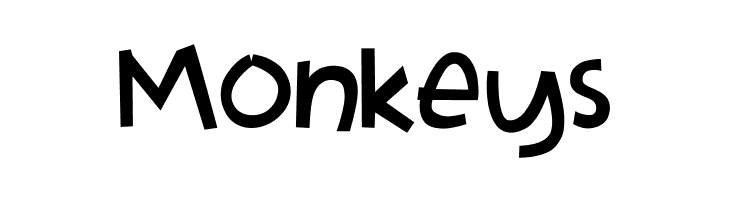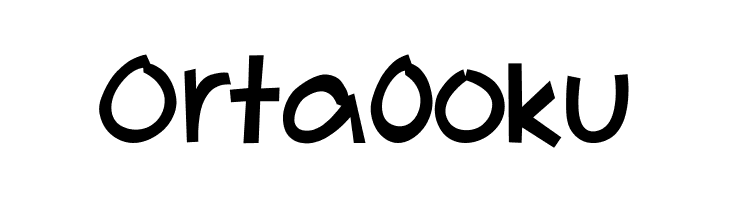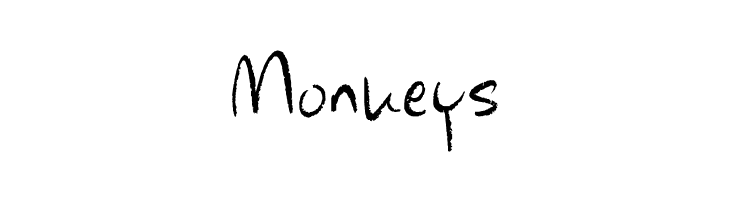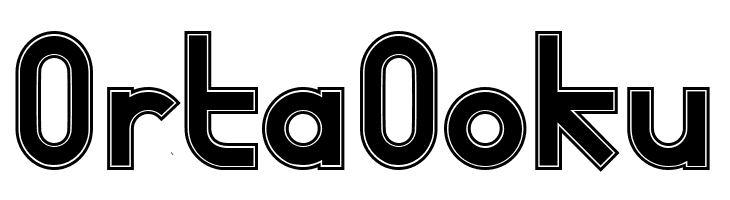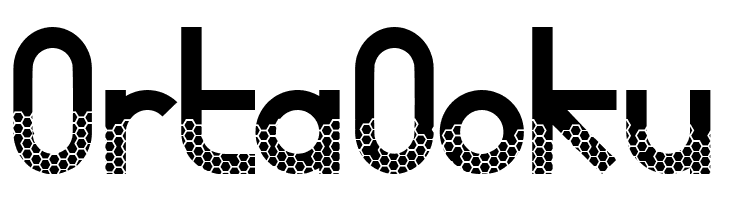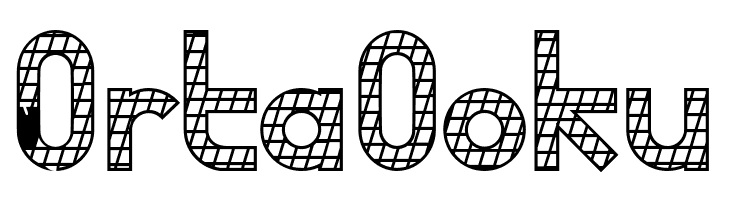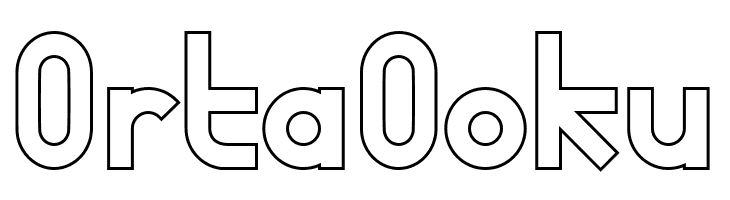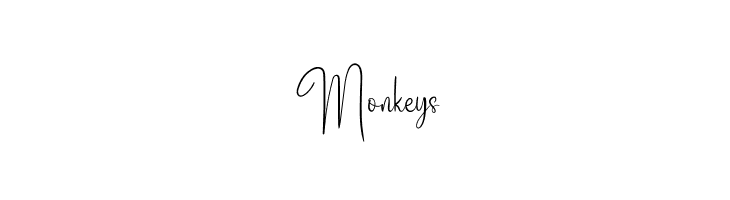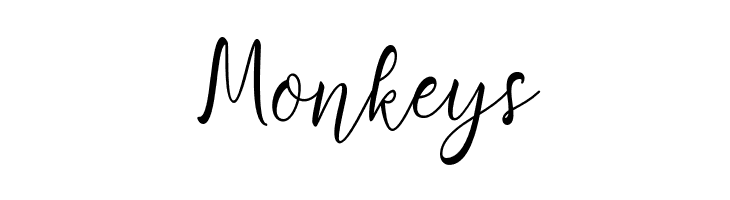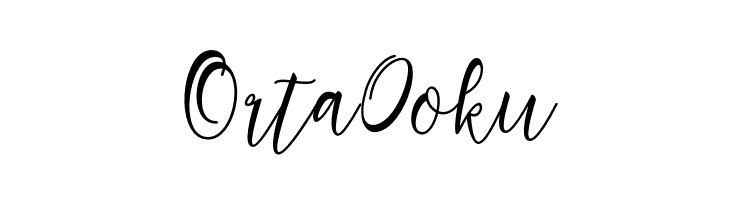
A bold, geometric font with a unique double-line effect, perfect for striking displays.
A bold, geometric font with a honeycomb pattern, perfect for creative projects.
A bold, geometric outlined font with a modern and playful style.
A decorative font with a bold, grid-patterned style.
An elegant, flowing script font with a handwritten style.
A playful, artistic handwritten font with a brush-like texture.
A playful, bold font with rounded, bubbly characters.
An elegant, flowing script font with smooth, cursive strokes.
A playful, hand-drawn font with bold, rounded characters and a whimsical style.
An elegant script font with flowing cursive style and intricate flourishes.